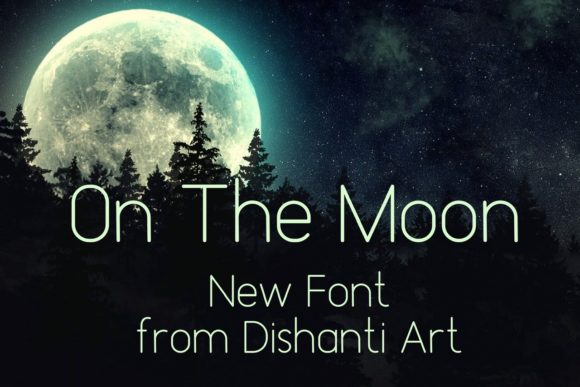
**On the Moon: The Font for Galactic Storytellers**
Prepare for textual takeoff with On the Moon, the display font that blasts your creations into a stratosphere of style. Inspired by the cosmos and crafted with celestial precision, this font family is your astro-navigator for captivating small-screen experiences.
On the Moon's Latin characters dance with a harmonious blend of tradition and modernity. Each letter, a celestial body, orbits its neighbors with distinctive contrasts and an exquisite balance. Its subtle elegance is the perfect companion for the storyteller who seeks the extraordinary in the ordinary.
With On the Moon, your words will transcend the mundane and transform into cosmic tales that twinkle with brilliance. Embrace the versatility of this lunar marvel and watch as it empowers your apps, websites, and designs with a touch of interstellar allure.
**Celestial Features:**
* Distinct and elegant display font
* Harmonious blend of traditional and contemporary influences
* Well-balanced Latin characters with distinctive contrasts
* Designed for maximum versatility and impact
* Perfect for captivating small-screen experiences
**Blast Off with On the Moon:**
* Craft captivating UI elements that shimmer with cosmic brilliance
* Design eye-catching headlines that soar to new heights
* Create interstellar logos that leave an unforgettable mark
* Compose social media posts that ignite conversations
* Fabricate otherworldly design elements that defy gravity